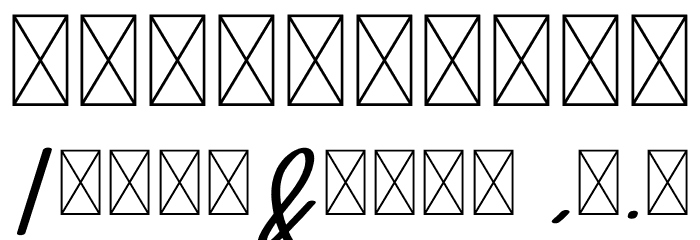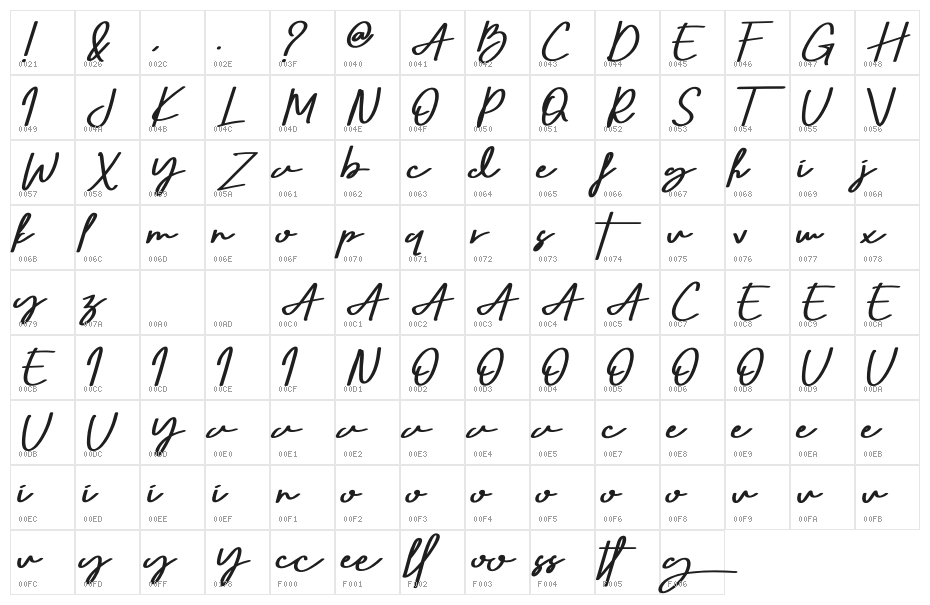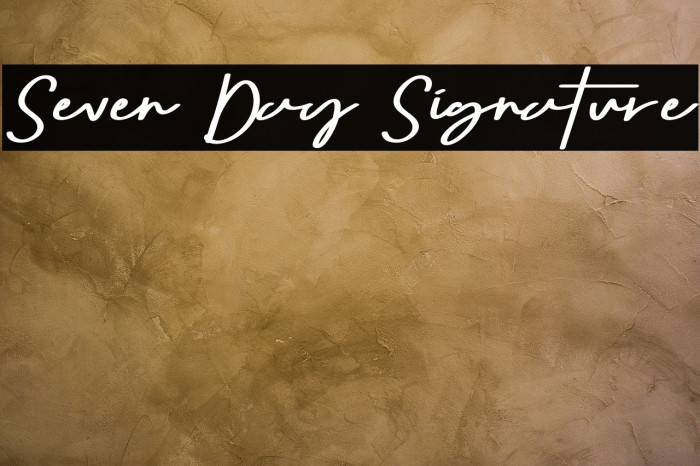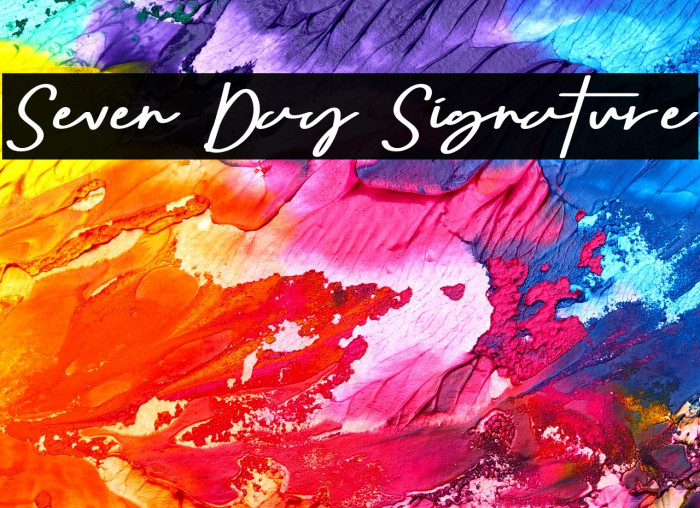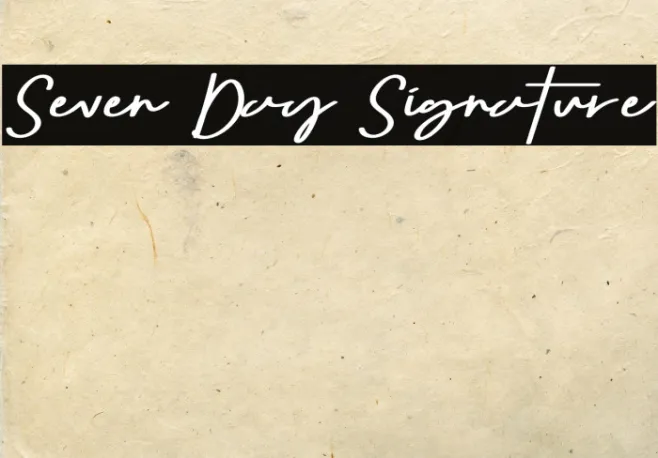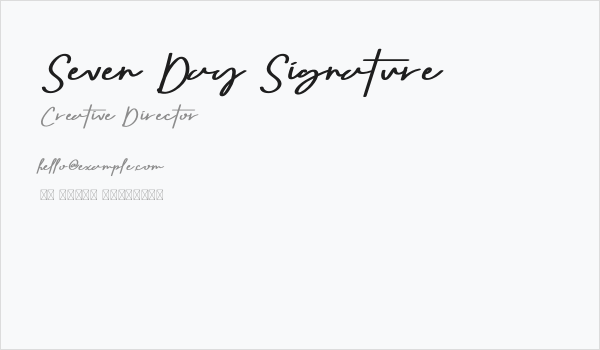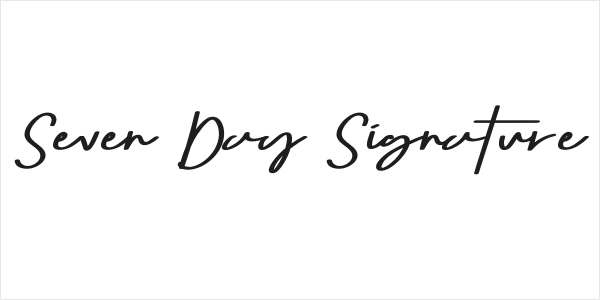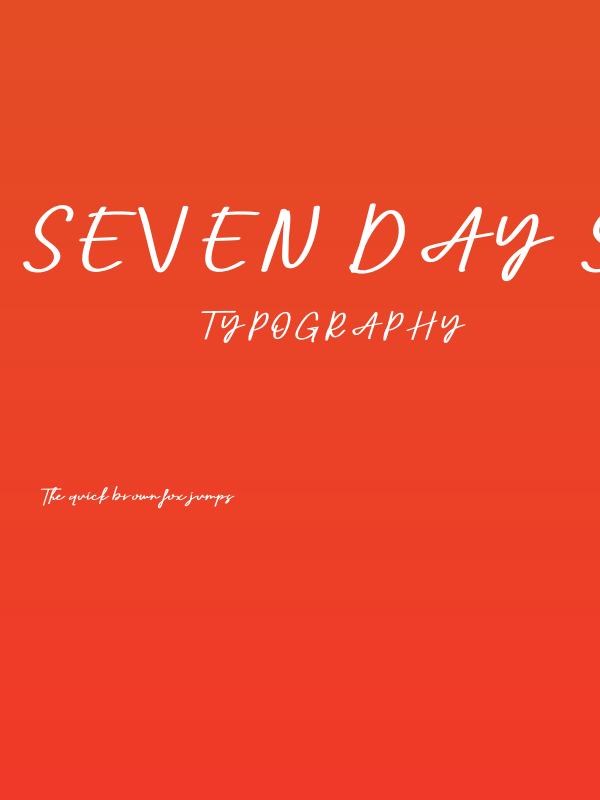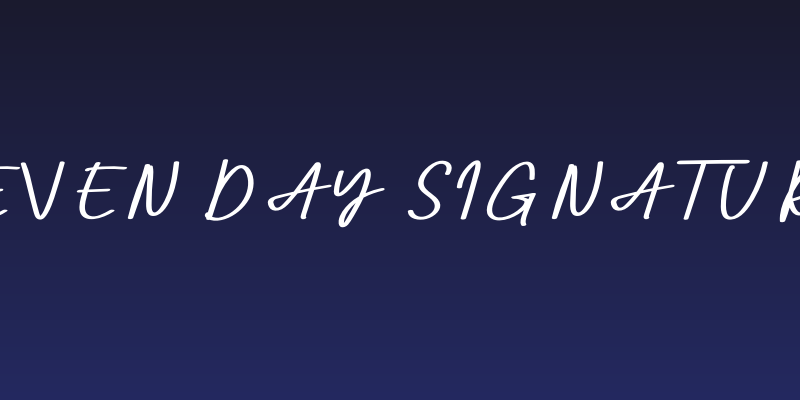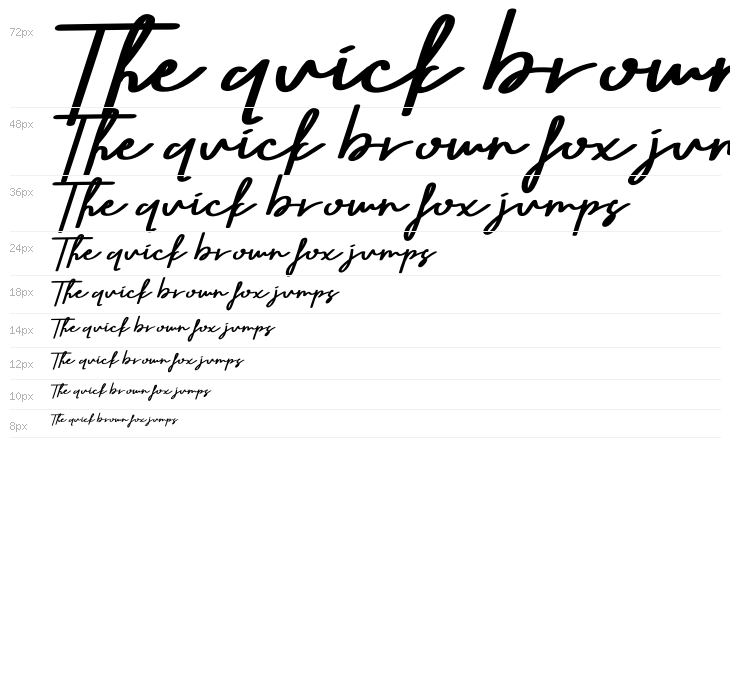
Seven Day Signature Font
Seven Day Signature Description
This font exudes a modern and stylish handwritten feel, characterized by its fluid and connected letterforms. The uppercase letters maintain a consistent height and are slightly slanted, giving a casual yet elegant appearance. The lowercase letters are more expressive, with varying heights and loops that add a personal touch. The strokes are smooth and continuous, enhancing the script-like quality. The overall design is clean, with a medium contrast between thick and thin strokes, making it legible while retaining its artistic flair. This font is versatile, suitable for both formal and informal applications, and can add a sophisticated touch to any project.
| Proposed Projects | Ideal for wedding invitations, personal branding, greeting cards, and social media graphics. |